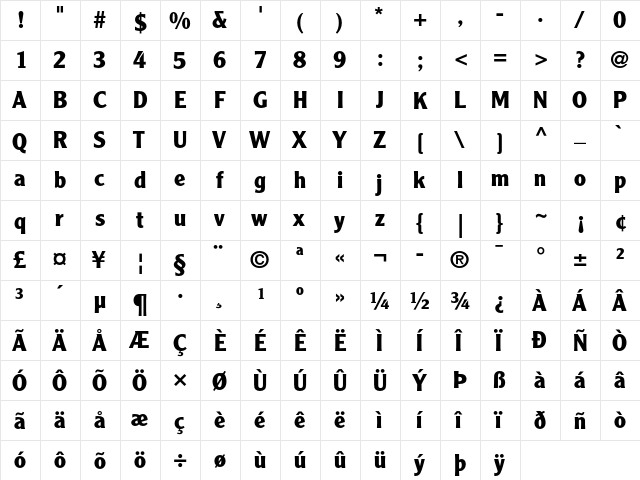
Clearface Gothic LH 75 Bold
Design Context for Clearface Gothic LH Typeface
Clearface Gothic LH has the quiet confidence of well-executed sans-serif typography: versatile, unobtrusive, and dependable at any size. Its bold stroke weight gives it real presence on the page.
Well-suited to navigation labels, product packaging, and anywhere legibility at scale is essential.
Font Pairing: Use Clearface Gothic LH for headlines alongside a lighter-weight sans or serif for body copy to establish clear visual hierarchy.
Pro Tip: Use Clearface Gothic LH for UI labels, navigation, and short-form body copy where clean legibility is the priority.